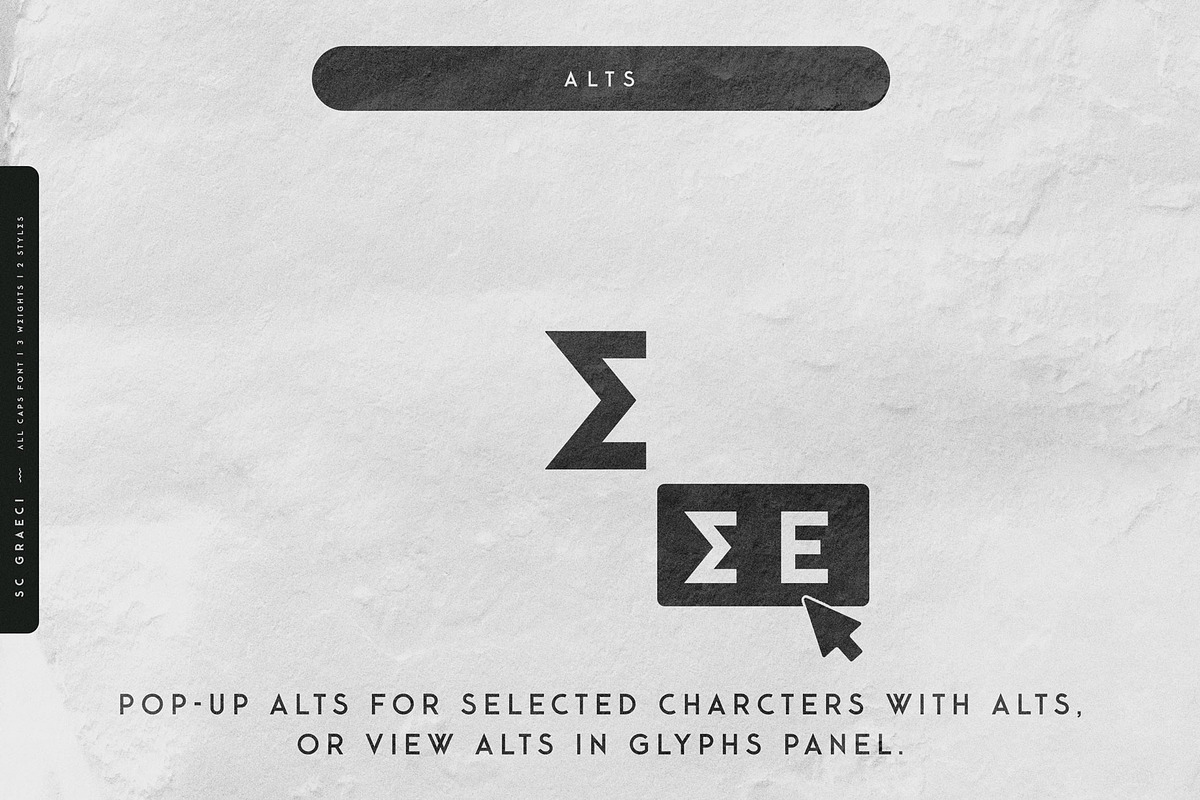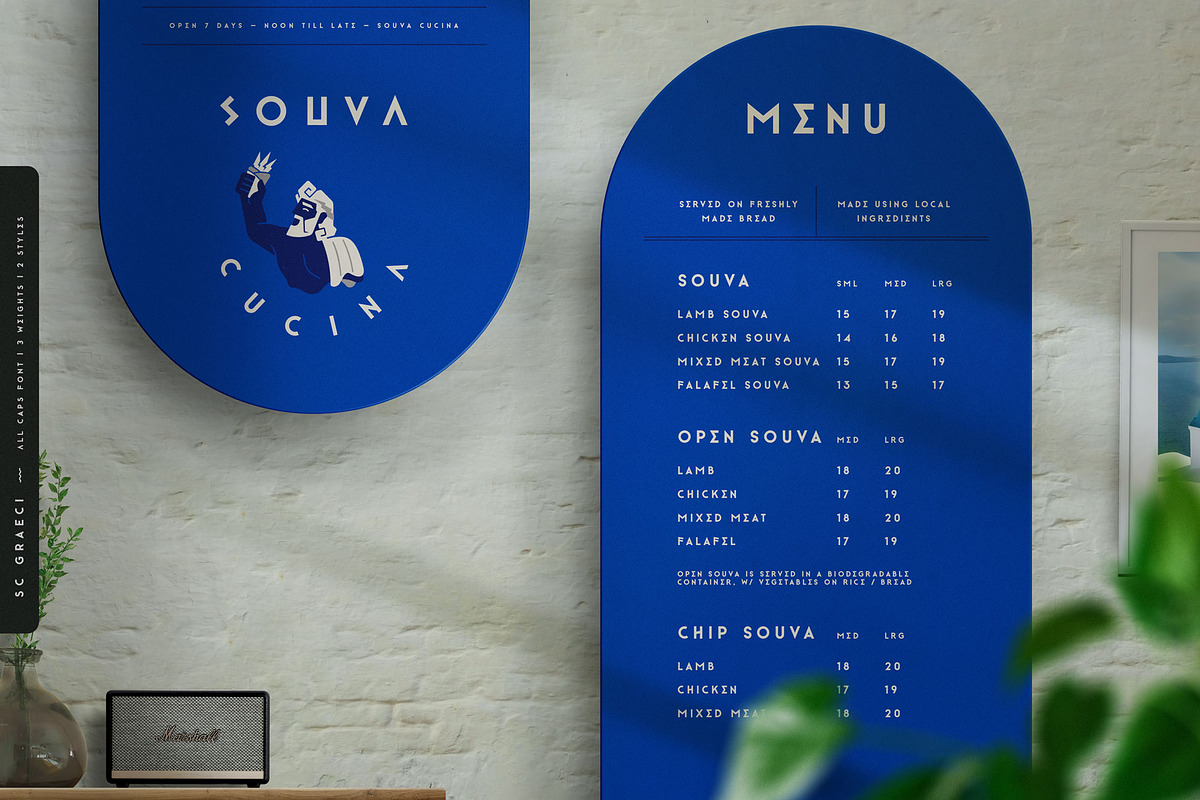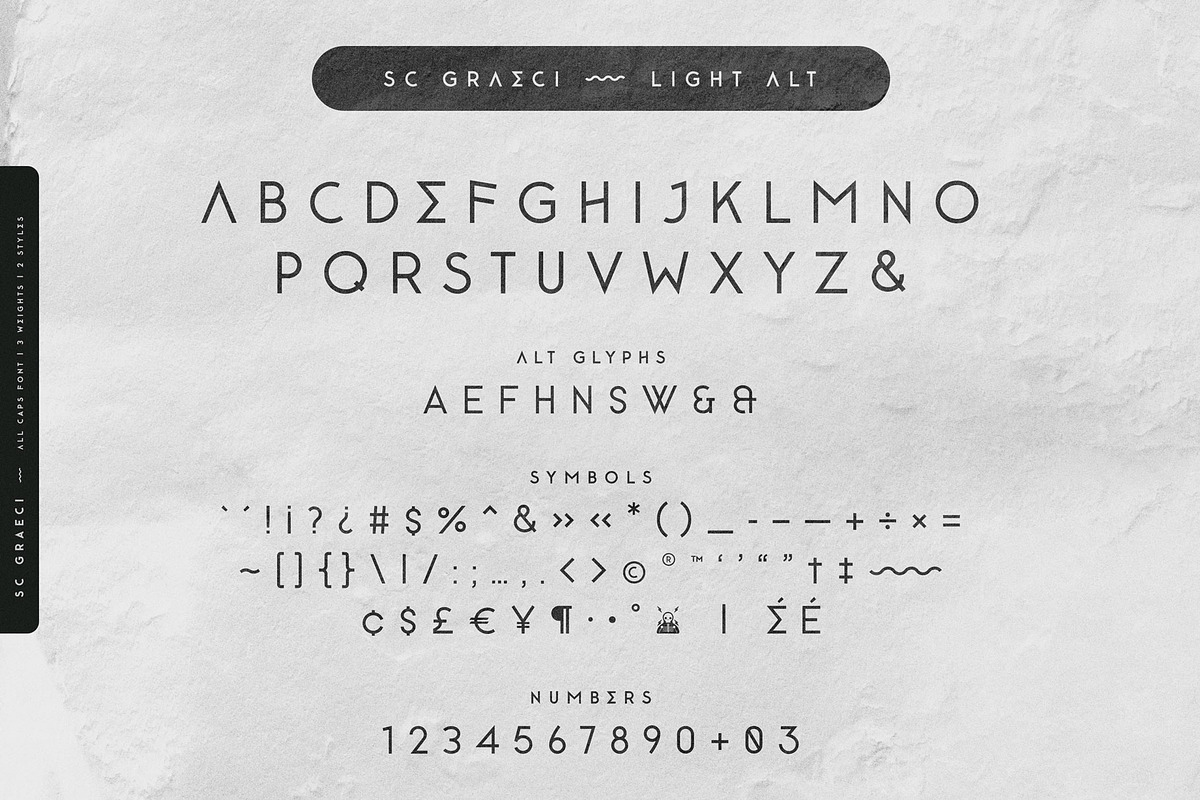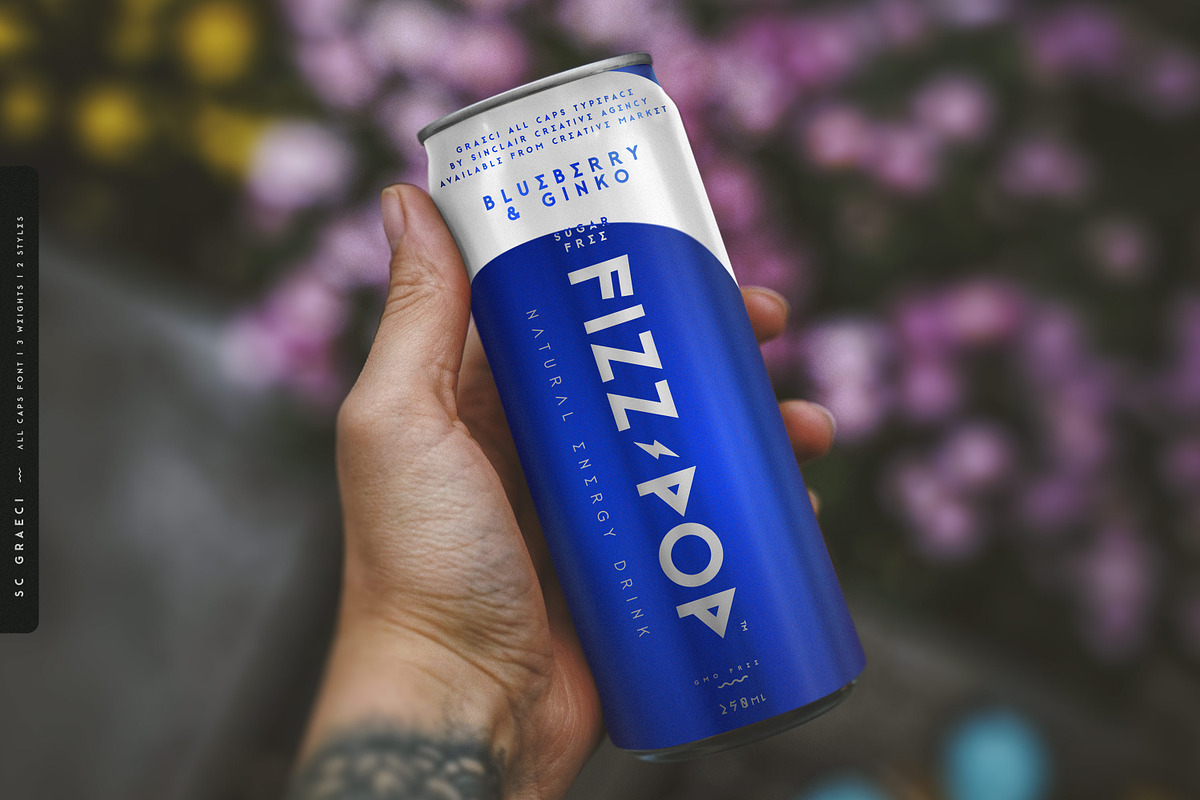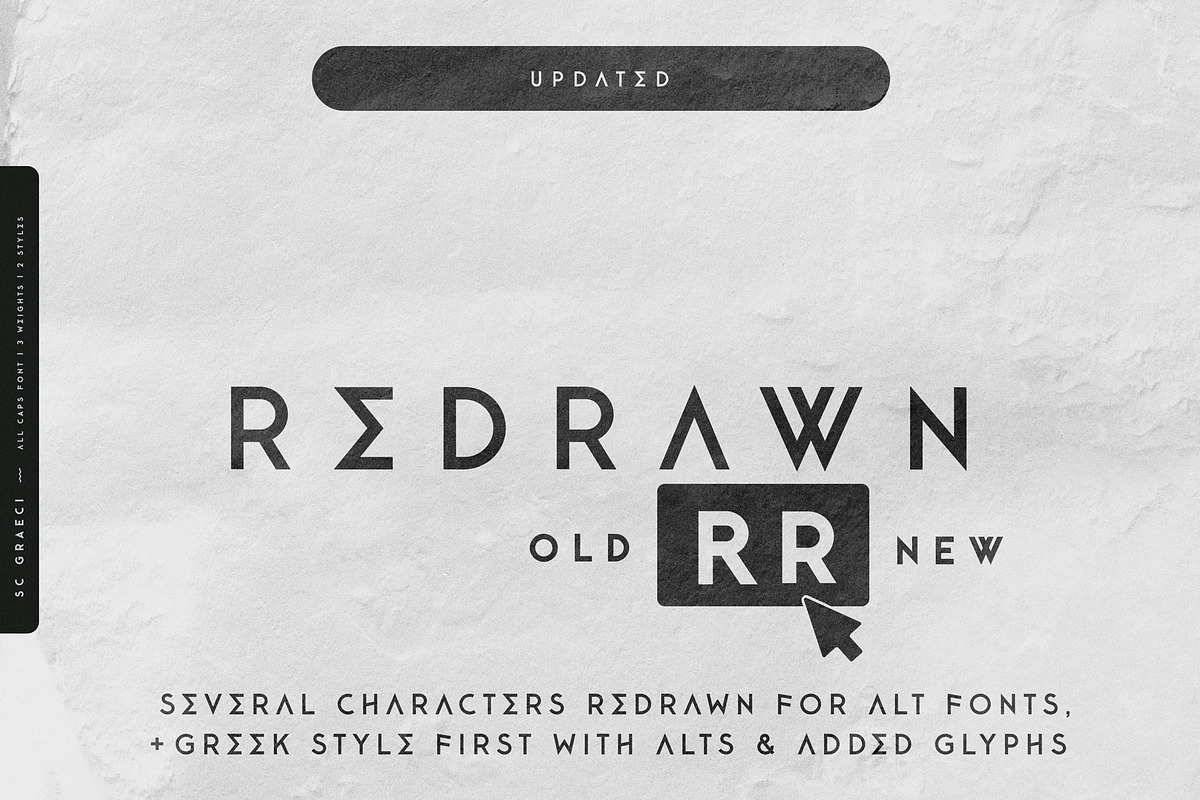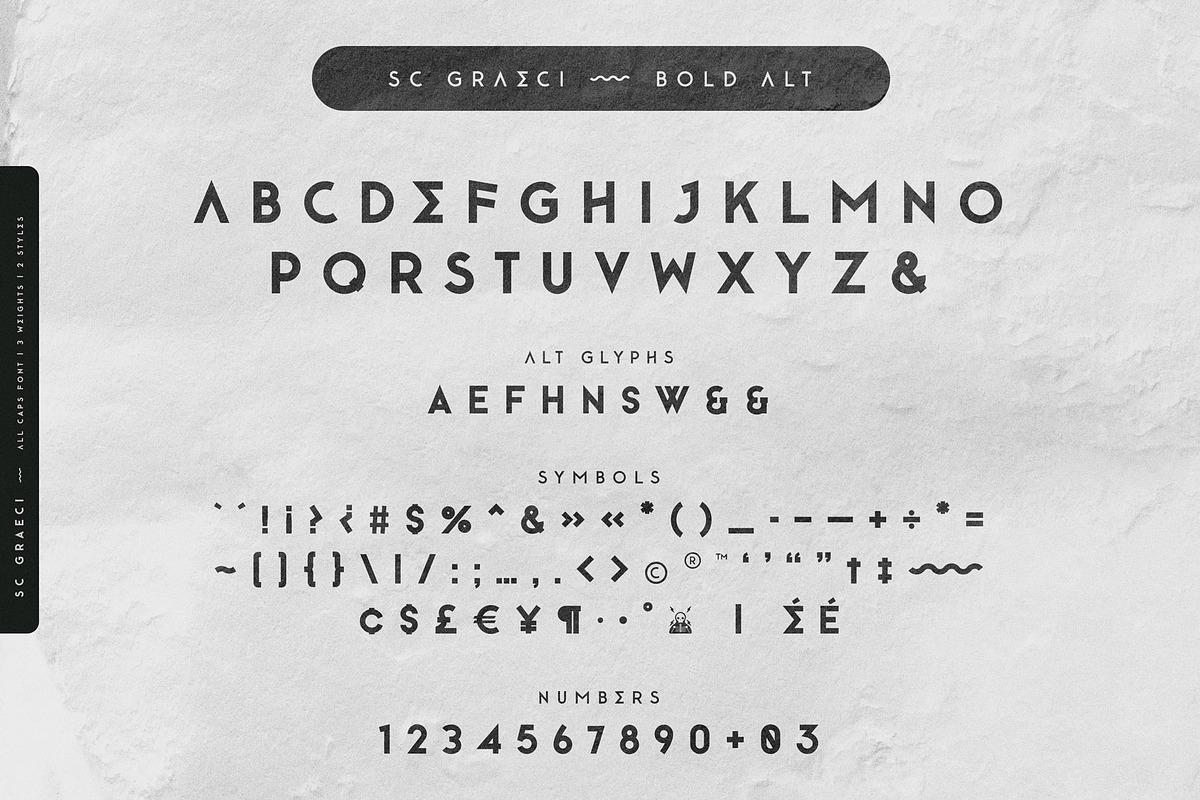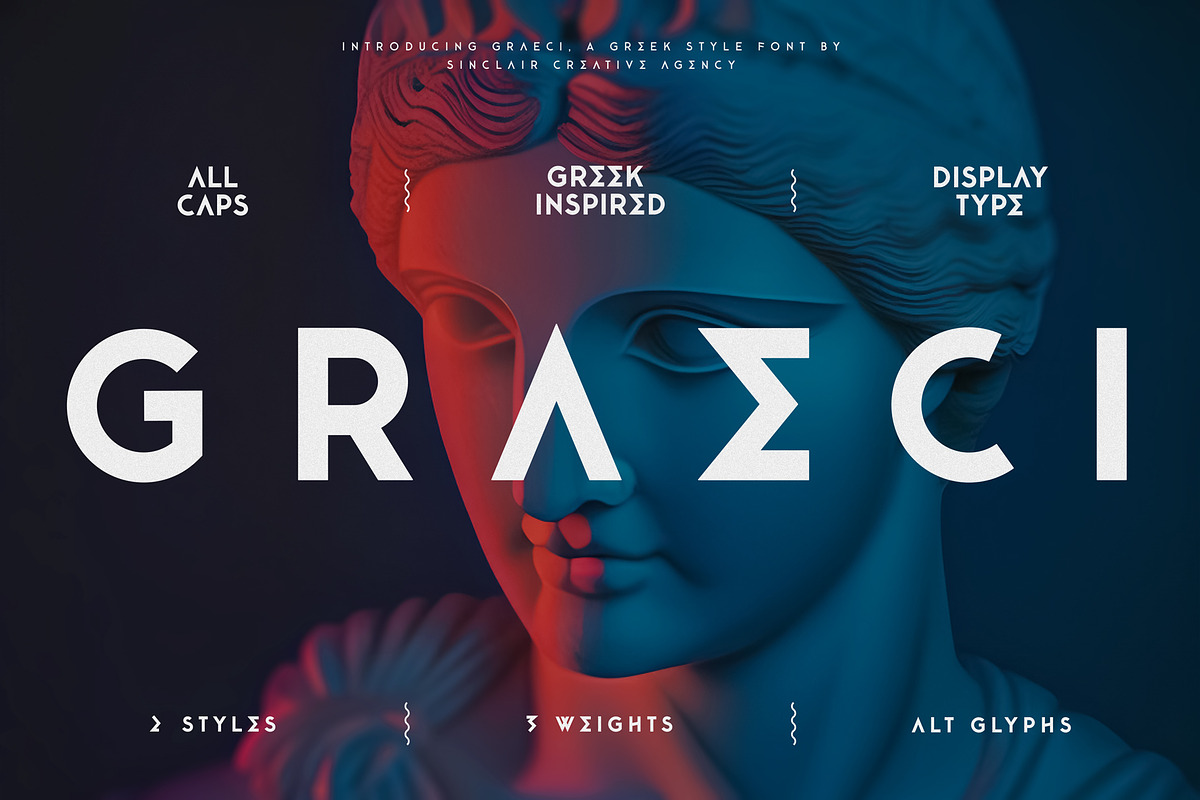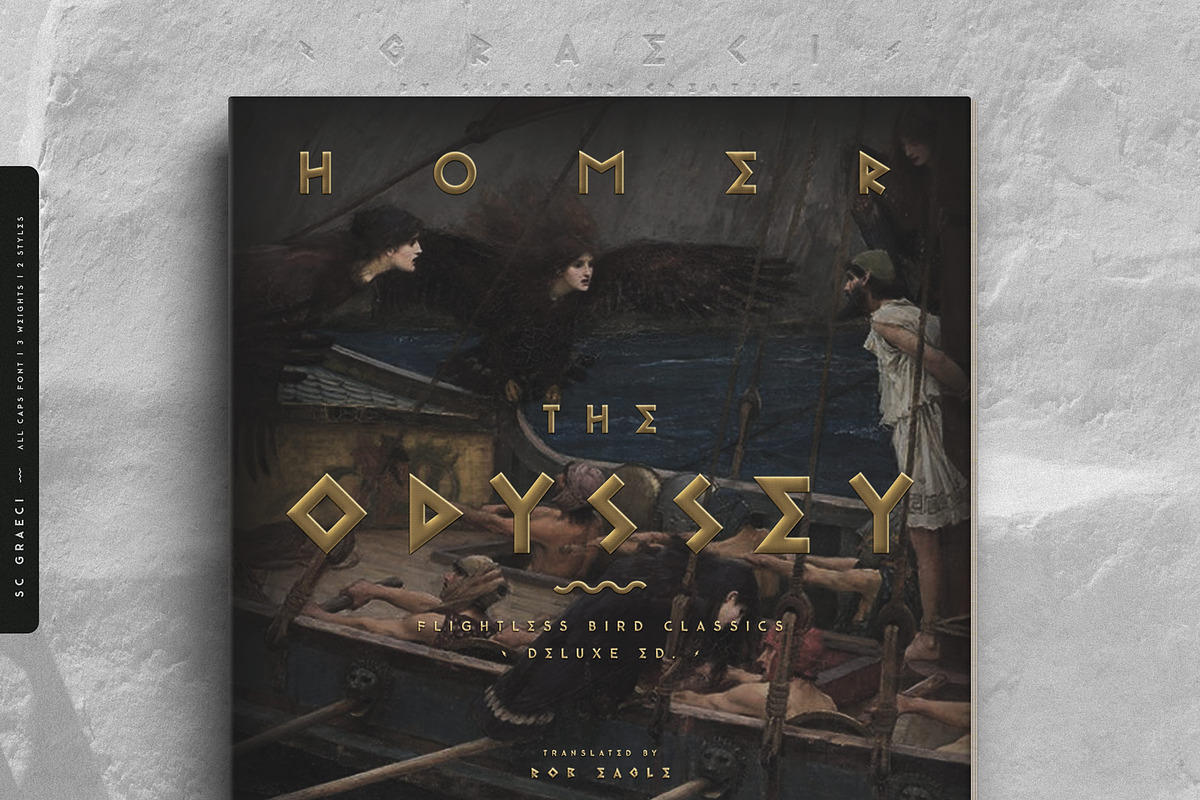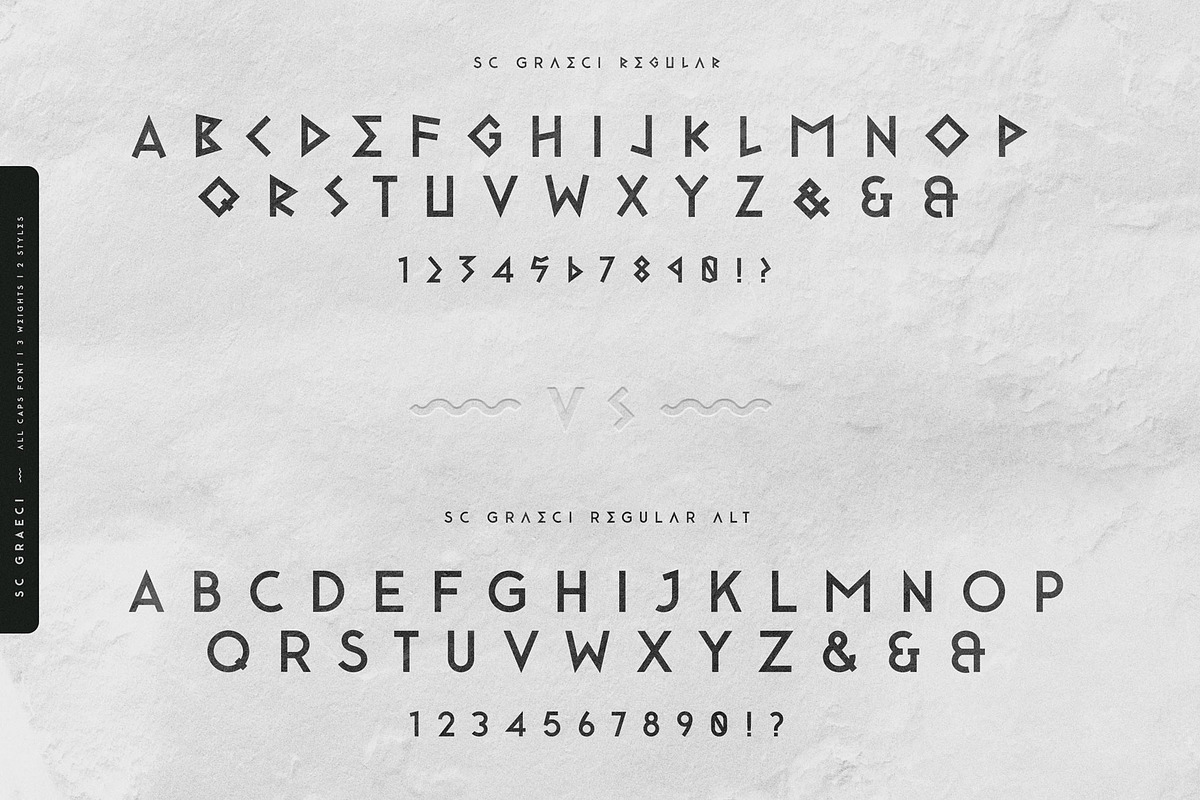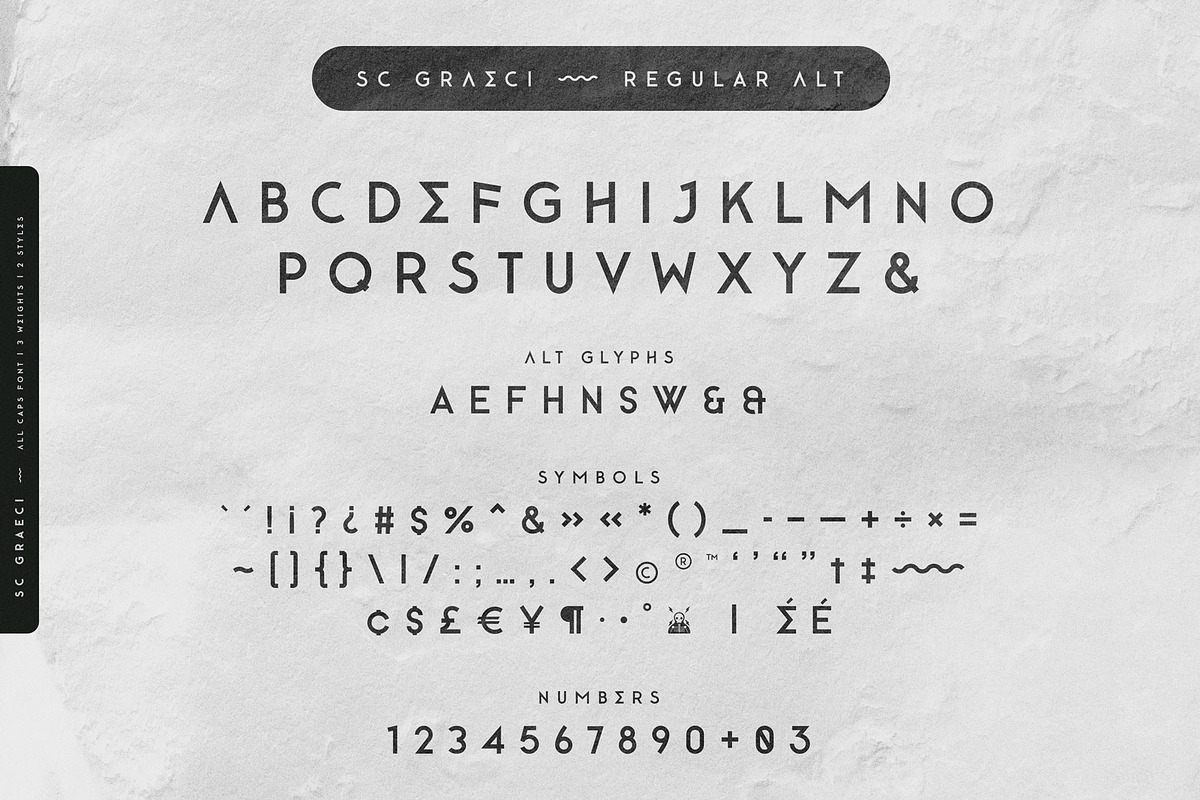
Graeci Display — Greek Inspired Font
Graeci is a Greek inspired all caps display typeface Graeci light, regular & bold feature sharp lines and angles with subtle curved corners, while alternative versions in each weight transition to a more modern smooth and curved minimalist interpretation with clean angles and a few extra stylish alternative characters.
This sans serif family has 2 styles with 3 weights and includes numbers + symbols